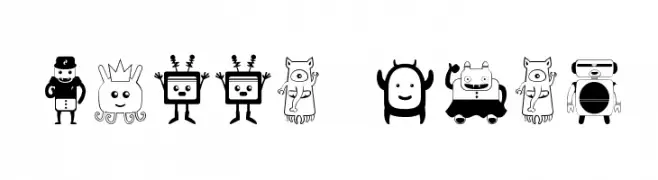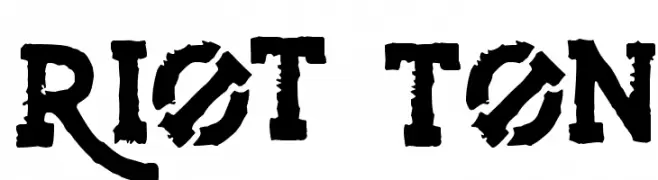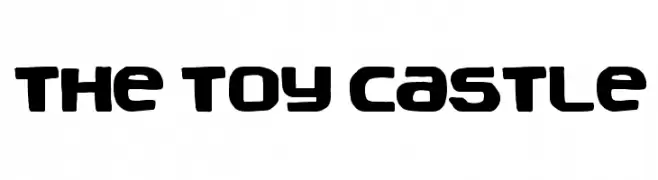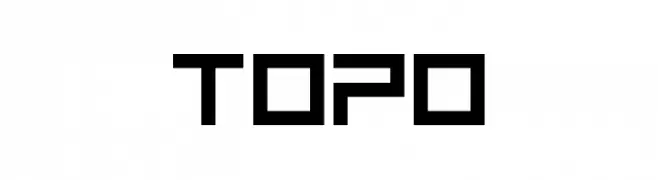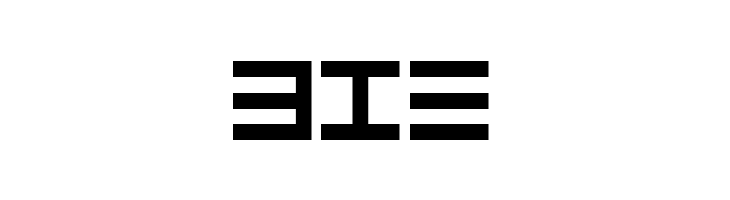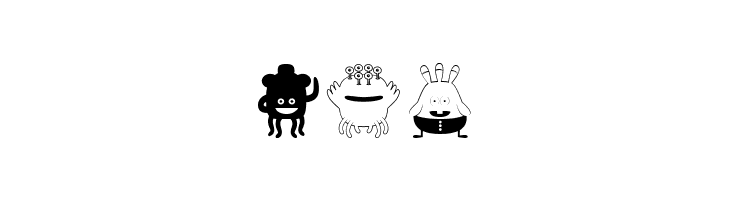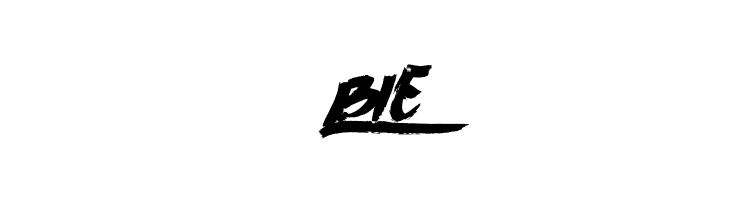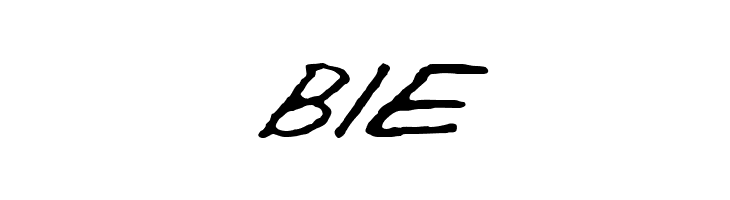
A bold, playful script font with a handwritten feel.
A pixelated, blocky font inspired by retro digital displays.
A fun dingbat font of cartoon monster and toy illustrations.
A sophisticated and elegant script font with flowing, cursive letterforms.
A playful, bold font with rounded edges and a blocky appearance.
A bold, distressed font with a rugged, grunge-like appearance.
A bold, outlined font with a striking, dimensional appearance.
A bold, brush-style script font with expressive, hand-painted strokes.
A dynamic handwritten font with fluid strokes and a personal touch.